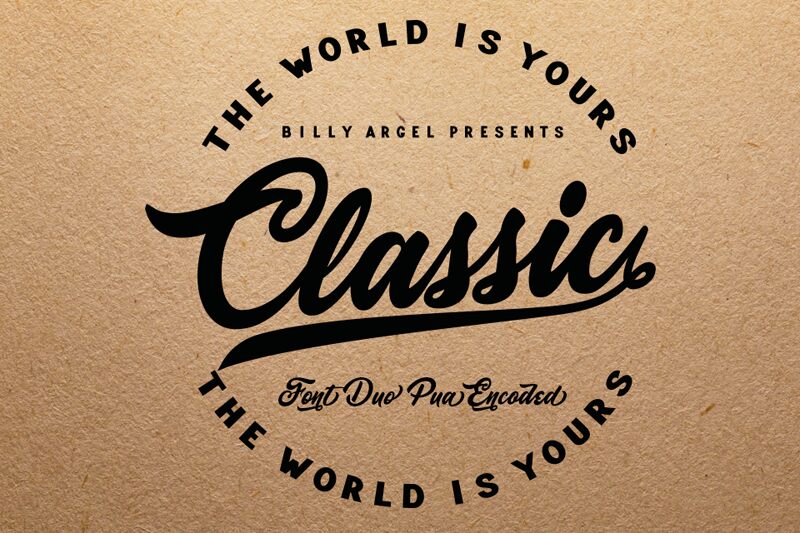
Classic Personal Use Regular
Classic, is a font DUO, PUA encoded with 11 different swashes applicable under the words, stylistic alternates and swash at the end of the letters.